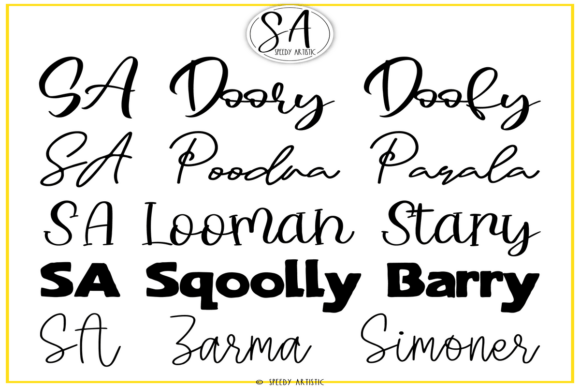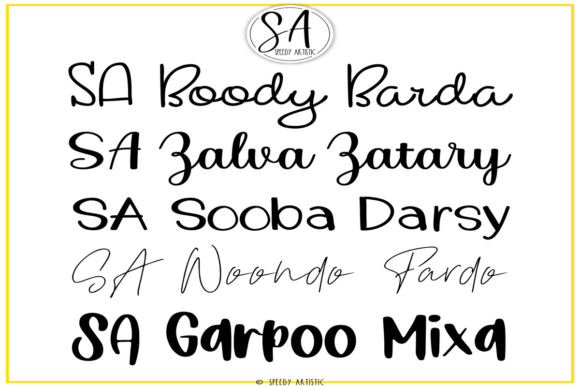
Introduction to Script and Handwritten Bundle 14 Font
This font bundle includes 10 handwritten True-Type script Fonts (TTF) perfect for your everyday creation journey to create something catchy.
This font bundle is for creators who love to have a large collection of appealing fonts to use when creating new products Included Fonts: 01.
Key Features of Script and Handwritten Bundle 14 Font
Why Choose Script and Handwritten Bundle 14 Font?
Script and Handwritten Bundle 14 Font offers exceptional quality and versatility, making it a valuable addition to your design toolkit. Whether you’re creating for personal projects or commercial use, Script and Handwritten Bundle 14 Font delivers professional results.